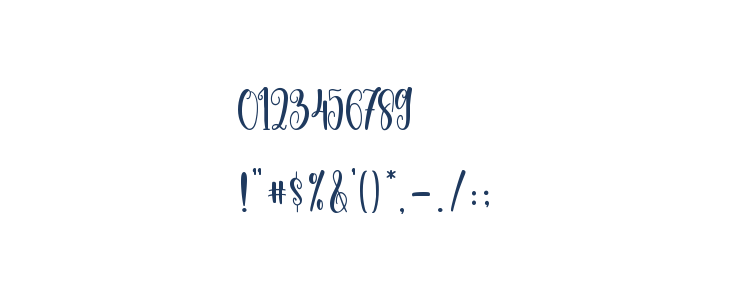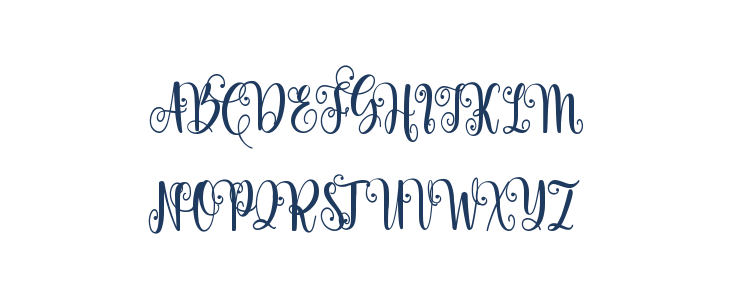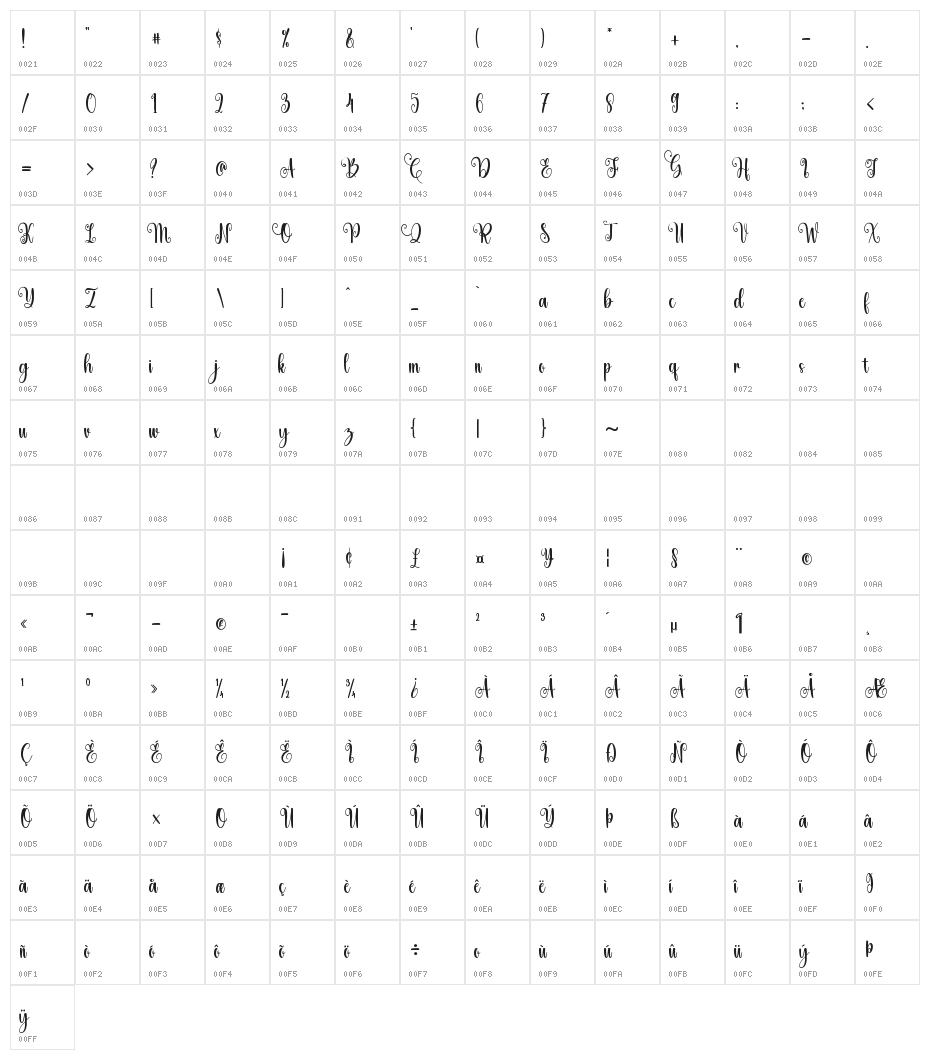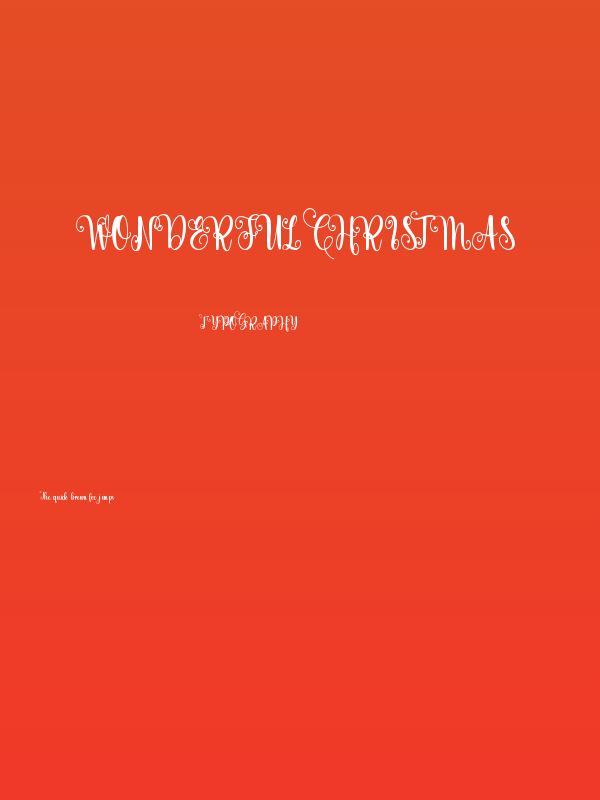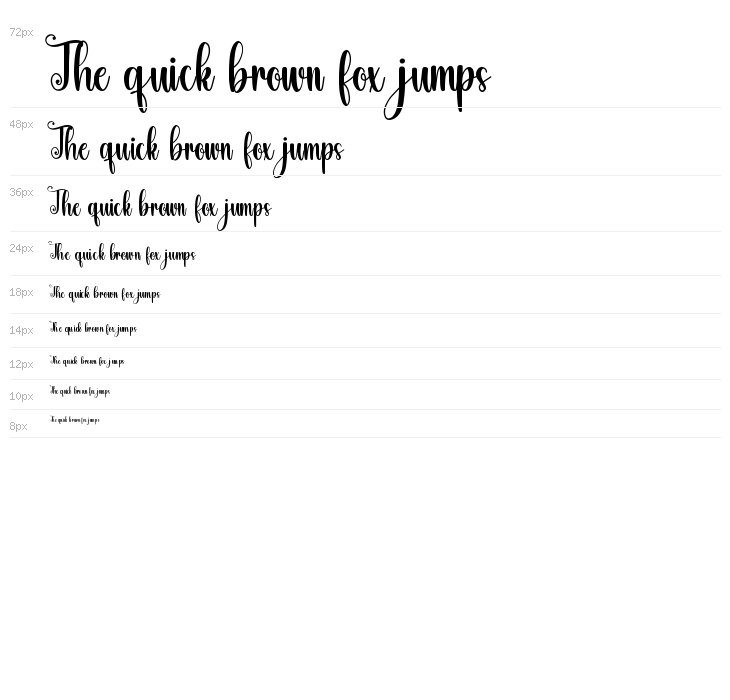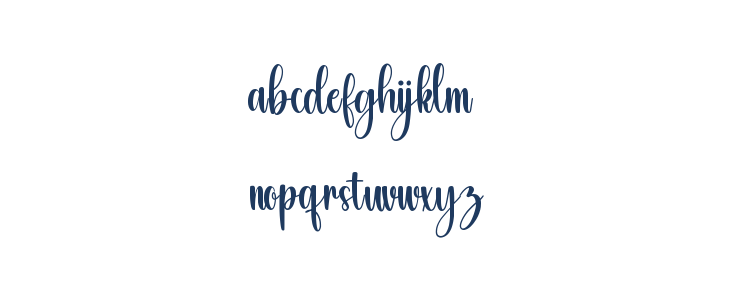
Wonderful Christmas Font
Wonderful Christmas Description
A decorative script font with elaborate swashes and curls, featuring high contrast between thick and thin strokes. Uppercase letters are ornate and embellished, while lowercase letters are more fluid and connected. The numerals and punctuation maintain the playful, festive style.
| Overall Style | Decorative, Festive, Playful |
| Use Case | Headlines, Logos, Invitations, Greeting cards |
| Proposed Projects | Holiday cards, invitations, festive branding, event posters, decorative signage. |